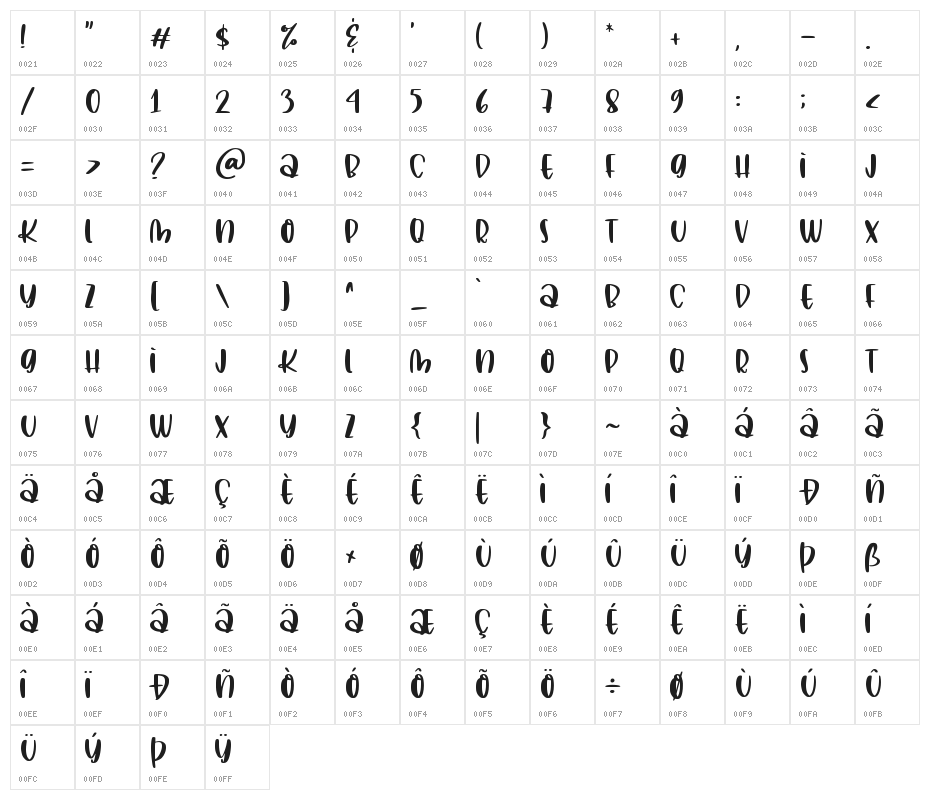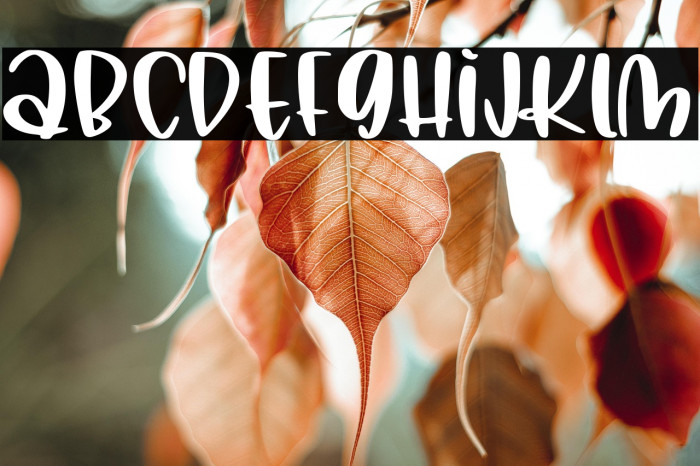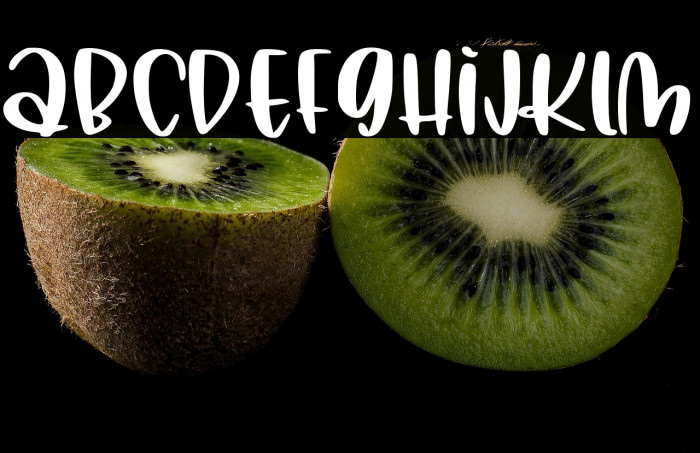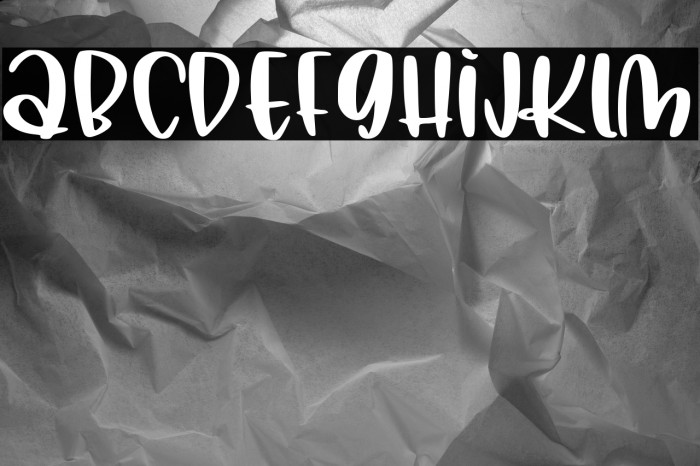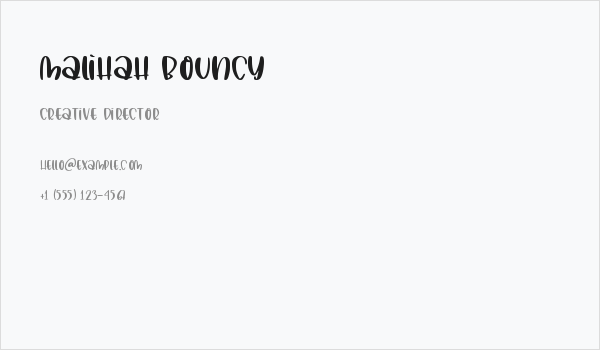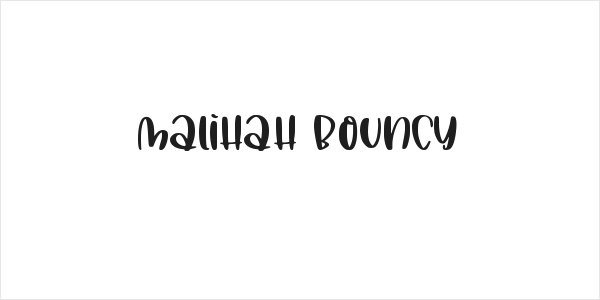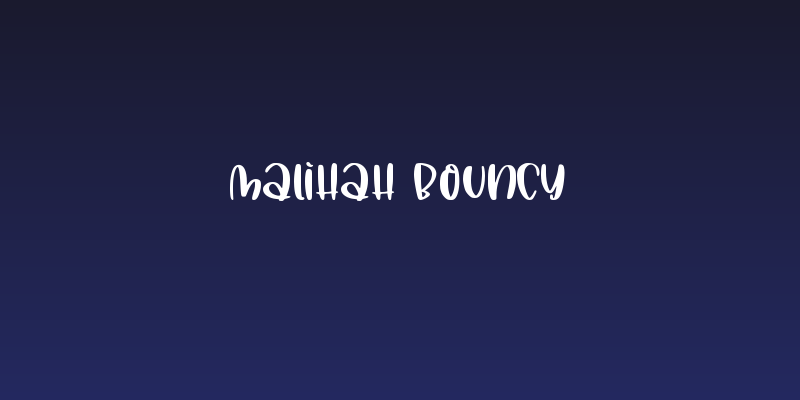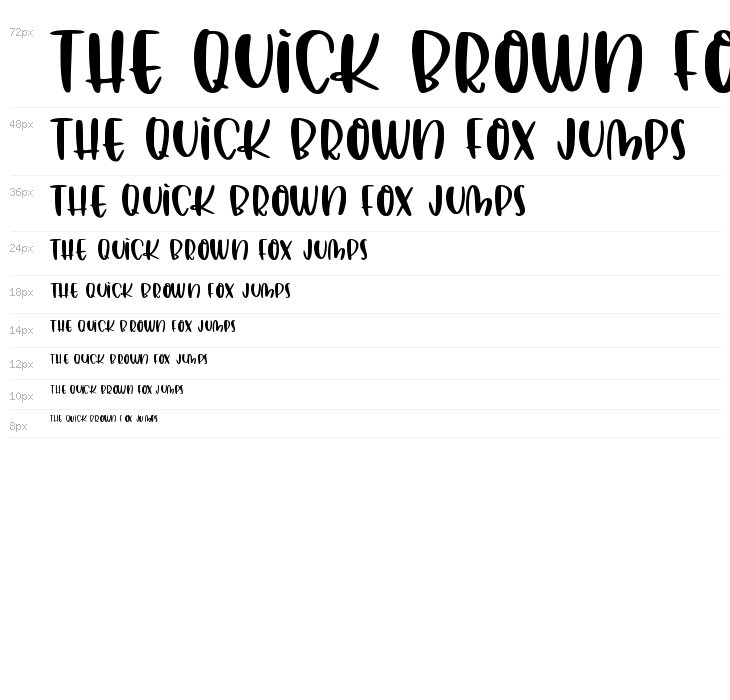
Malihah Bouncy Font
Malihah Bouncy Description
This font exhibits a playful and energetic style with its bouncy and flowing letterforms. The characters are bold and rounded, giving them a friendly and approachable appearance. The uppercase and lowercase letters maintain a consistent rhythm, while the numbers and special characters complement the overall design. The strokes are smooth and slightly exaggerated, adding to the whimsical nature of the font. This typeface is ideal for projects that require a touch of fun and creativity, making it suitable for a variety of design applications.
| Proposed Projects | Ideal for children's books, playful branding, greeting cards, and social media graphics. |